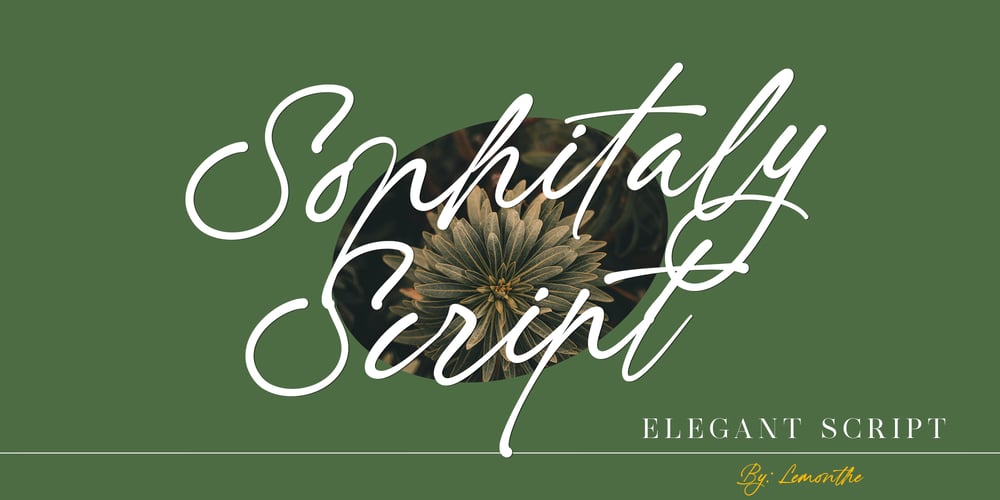
Sophitaly Script Font Family was designed by Dwi Ahidian and published by Lemonthe. Sophitaly Script contains 1 styles and family package options. Sophitaly Script is a script-style font with a natural and modern look, designed to prioritize practicality and flexibility. This font features clean strokes and meticulously crafted letterforms, creating a professional impression that is perfect for various design projects. Sophitaly Script is ideal for use in logos, branding, packaging design, editorials, and many other creative projects.